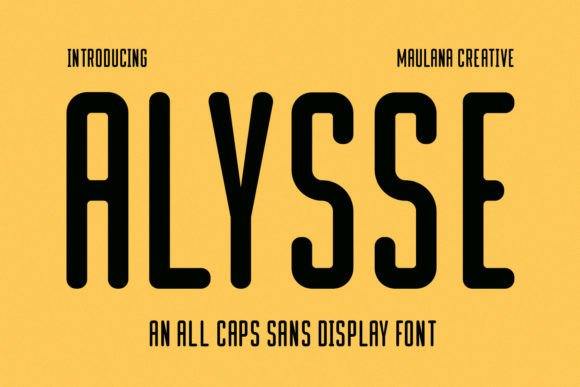
Unleash your creativity and professionalism with Alysse, the captivating sans serif font that exudes modernity and sophistication. Alysse is not just a font; it's a passport to a world of endless possibilities, empowering you to craft stunning visuals that resonate with your audience.
Immerse yourself in the allure of Alysse, designed with a regular condensed stroke that dances across the page with grace and precision. Its playful character, adorned with a touch of ligature and alternates, adds a hint of whimsy and intrigue to any design.
Alysse is the ultimate chameleon, adapting seamlessly to a myriad of creative endeavors. Whether you're crafting a captivating logo that demands attention or adding a touch of elegance to your social media presence, Alysse effortlessly elevates your designs.
Let the words flow effortlessly from your fingertips as you compose movie titles that ignite the imagination and book titles that whisper promises of untold adventures. Alysse's versatility knows no bounds, lending itself beautifully to both short and long texts, ensuring your message captivates every reader.
Pair Alysse with a graceful sans or serif font, and watch as your secondary text takes on a new life, adding depth and dimension to your designs. Unleash your creativity and forge a visual masterpiece that will leave an indelible mark on your audience.
Embrace the power of Alysse, where modernity meets sophistication. Its tech industrial genre exudes an air of innovation and professionalism, making it the perfect choice for resumes that demand attention and leave a lasting impression.
Alysse is not merely a font; it's an investment in your creative endeavors. Its versatility, charm, and unwavering quality ensure that your designs will captivate, inspire, and connect with your audience on a profound level.